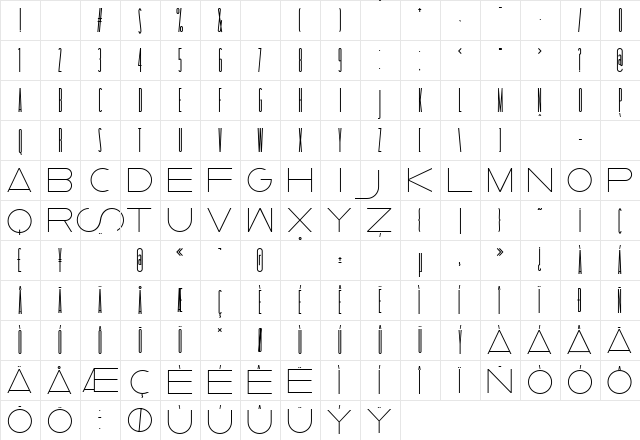
taller evolution Regular
| Foundry | Cosimo Lorenzo Pancini |
| Designer | Cosimo Lorenzo Pancini |
Design Context for taller evolution Typeface
taller evolution offers clean, dependable letterforms without strong stylistic allegiance, making it a practical choice for designers who need flexibility.